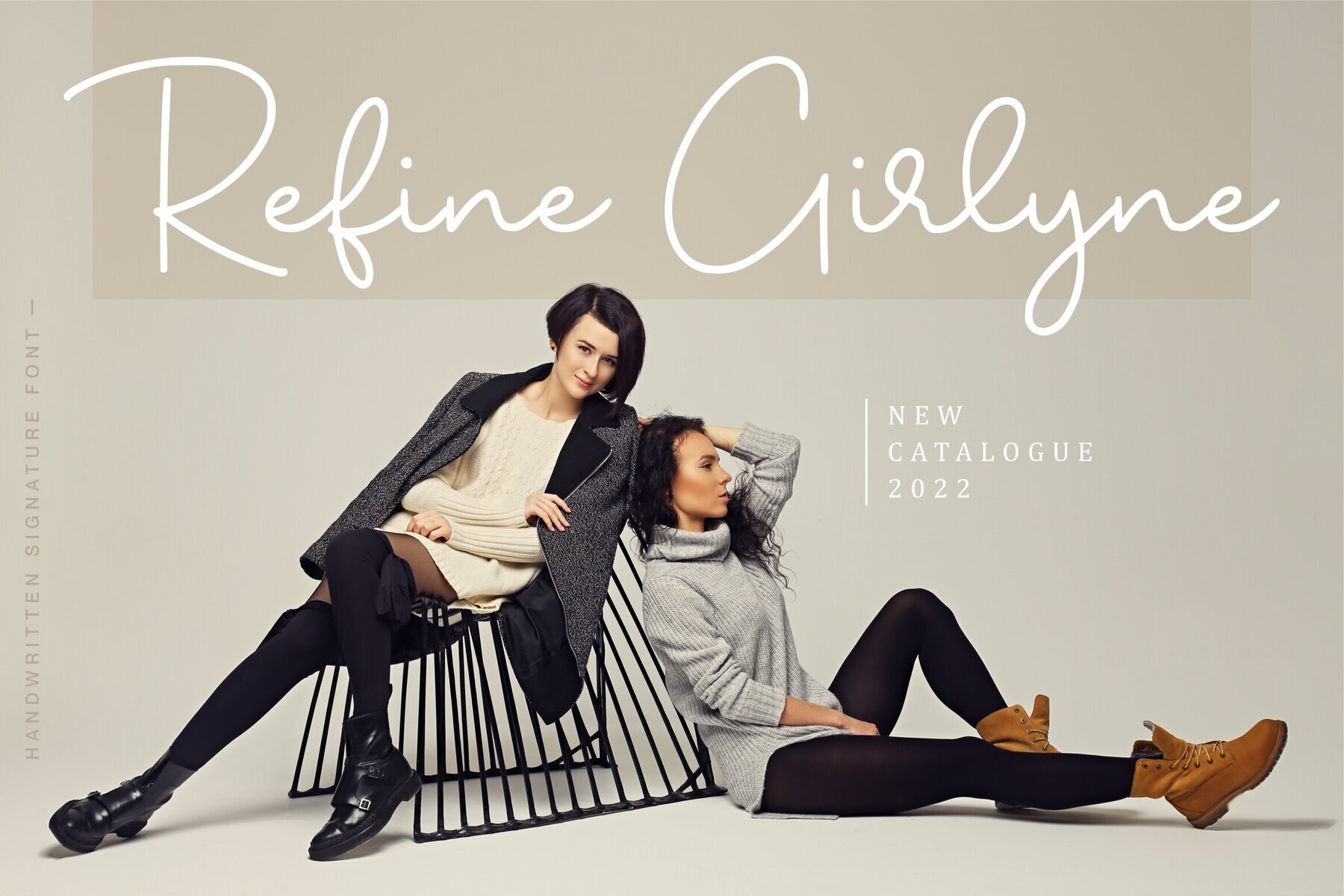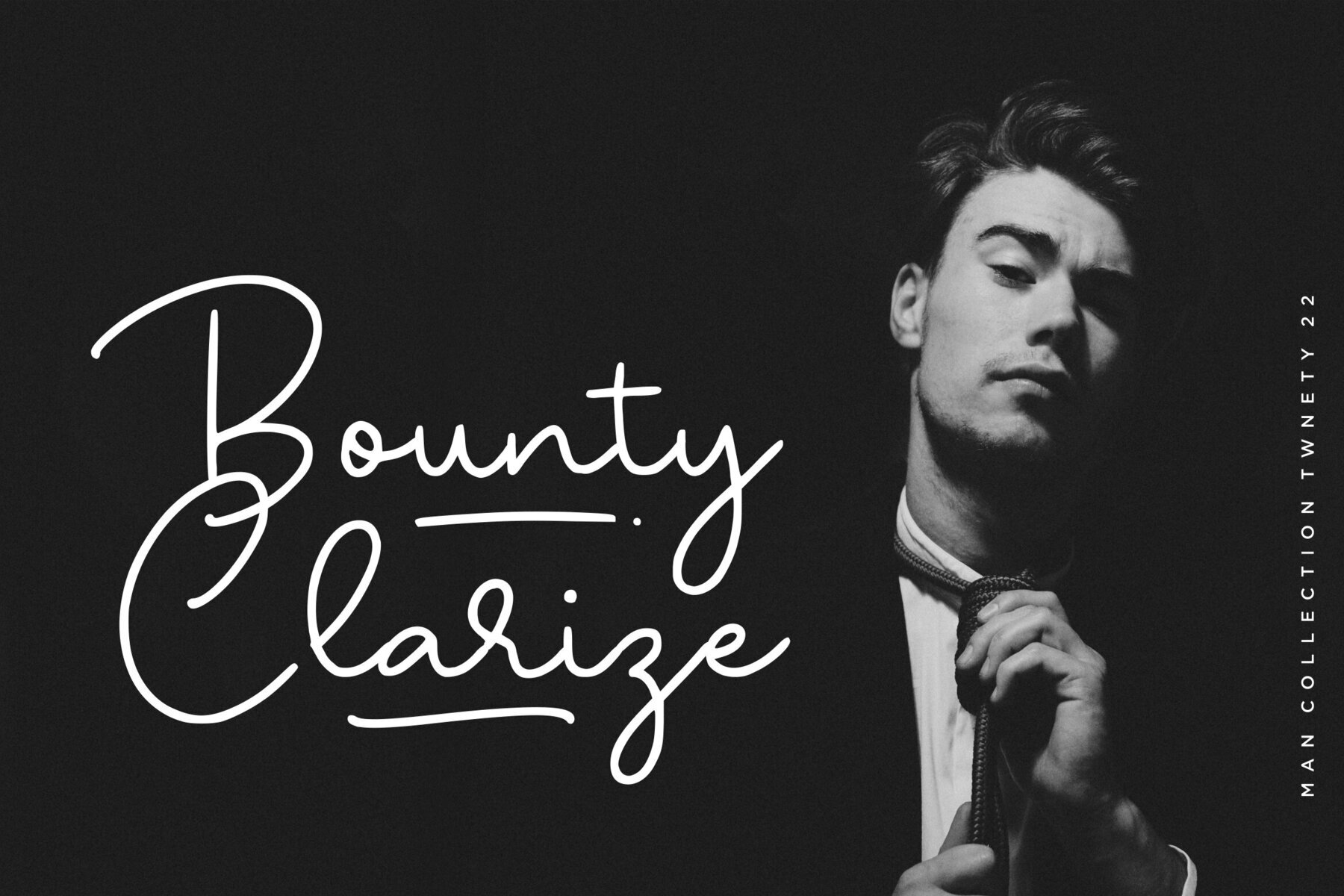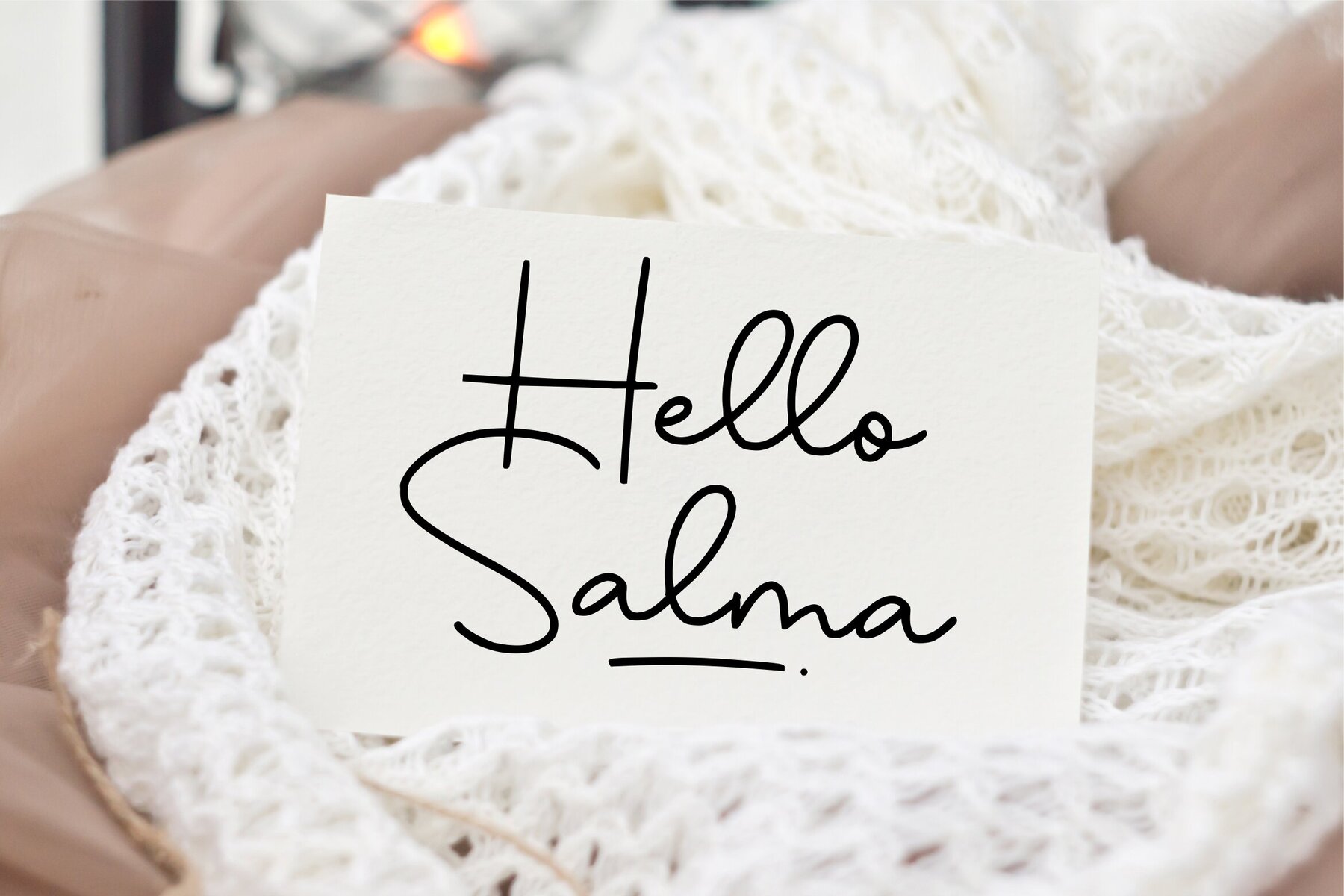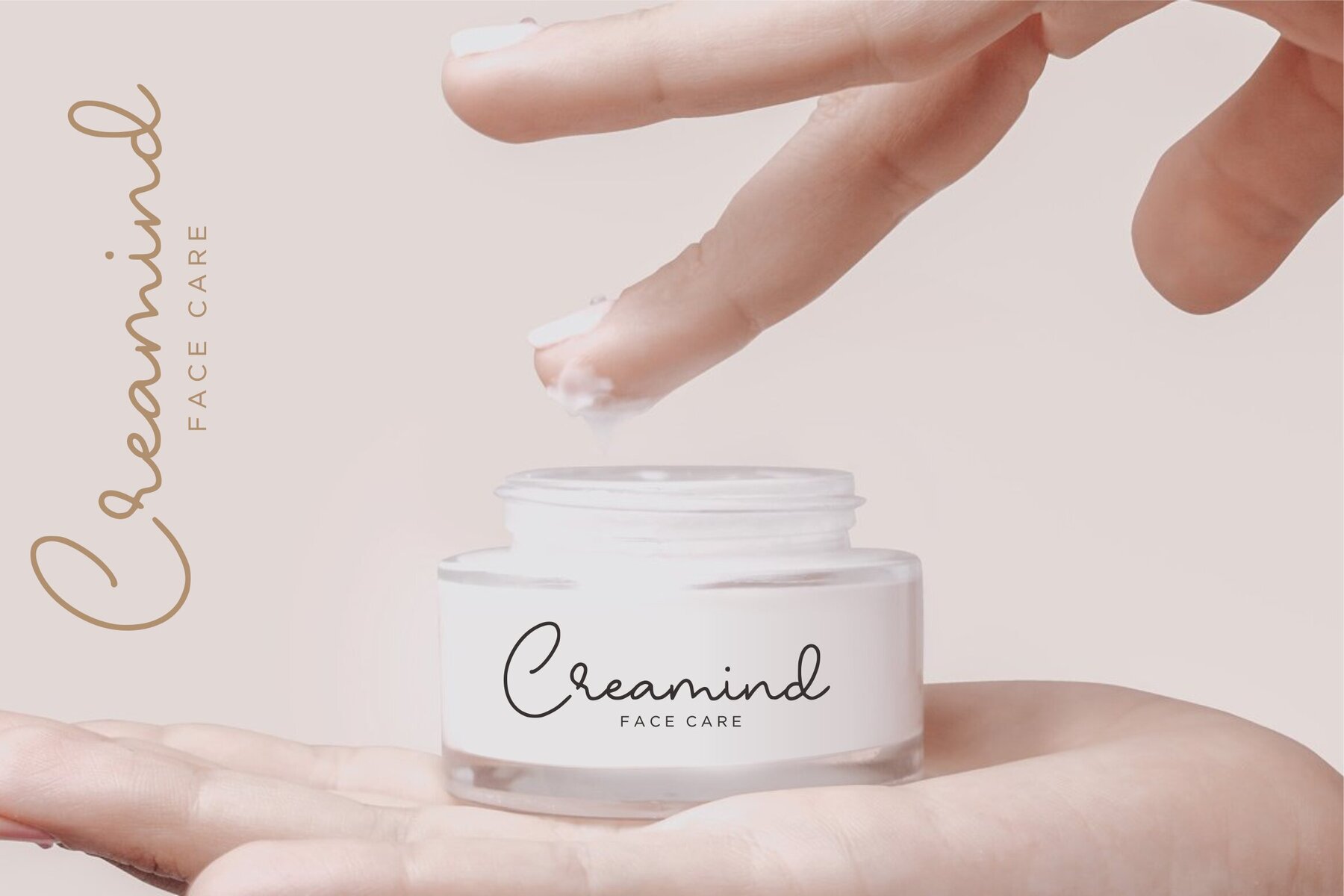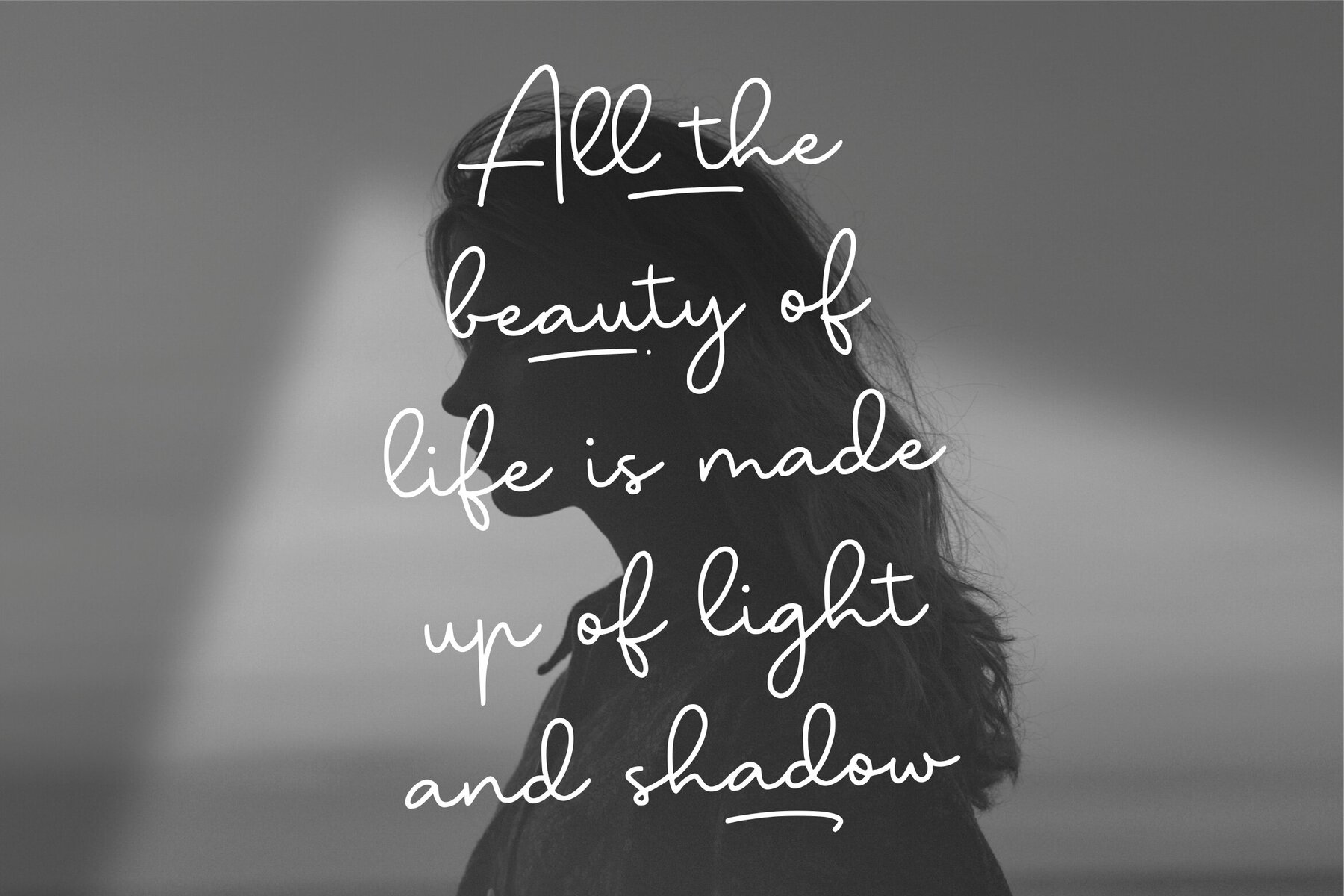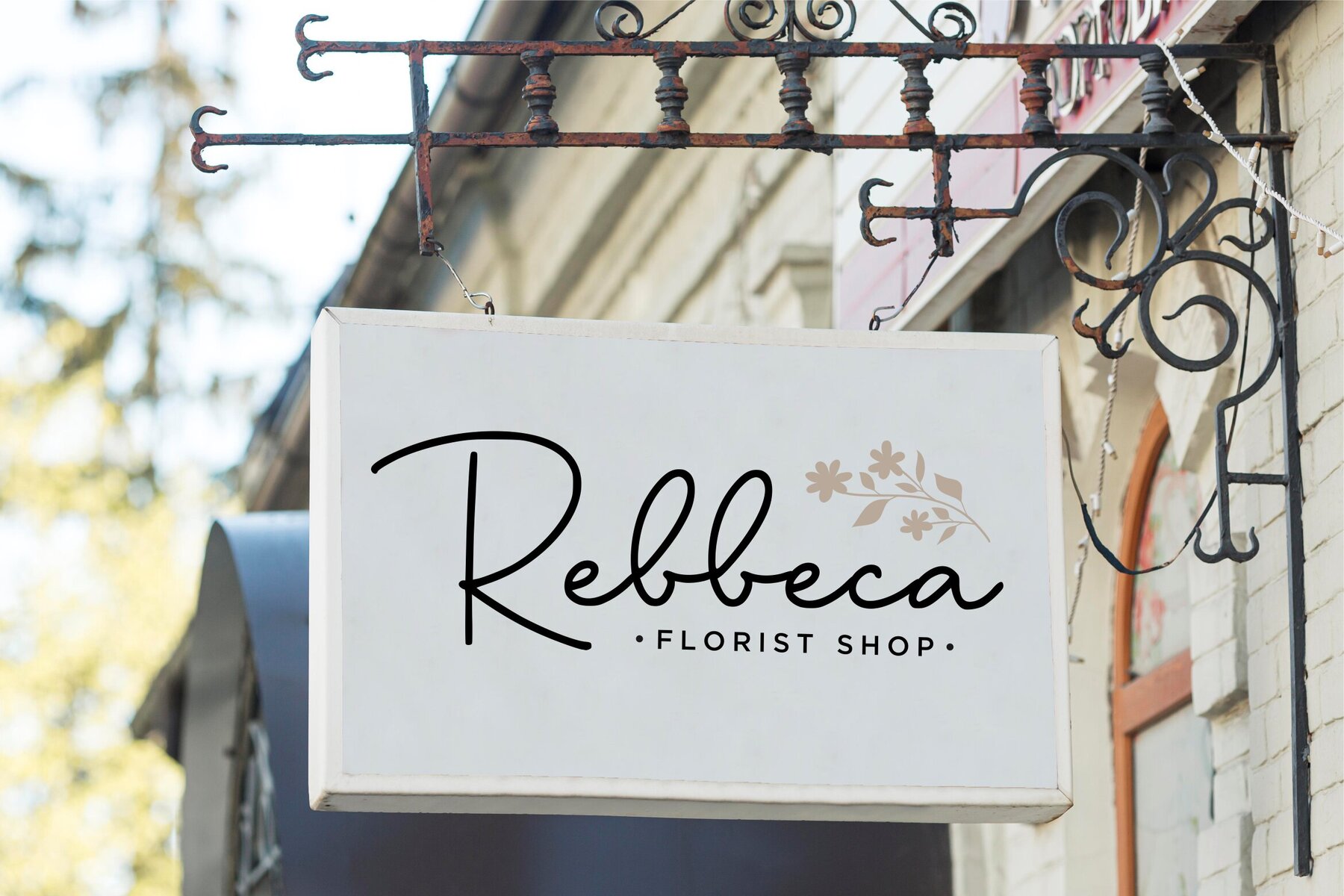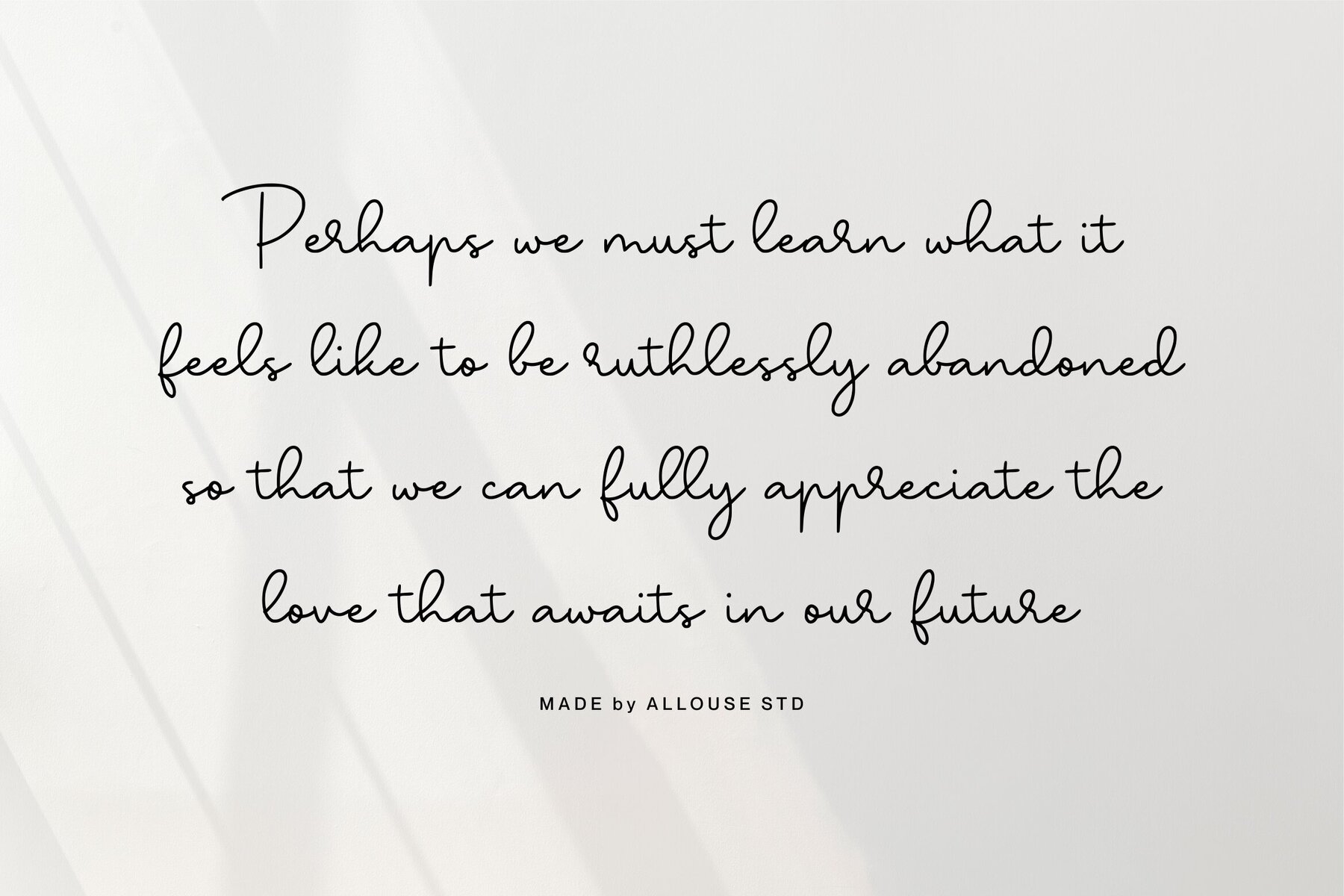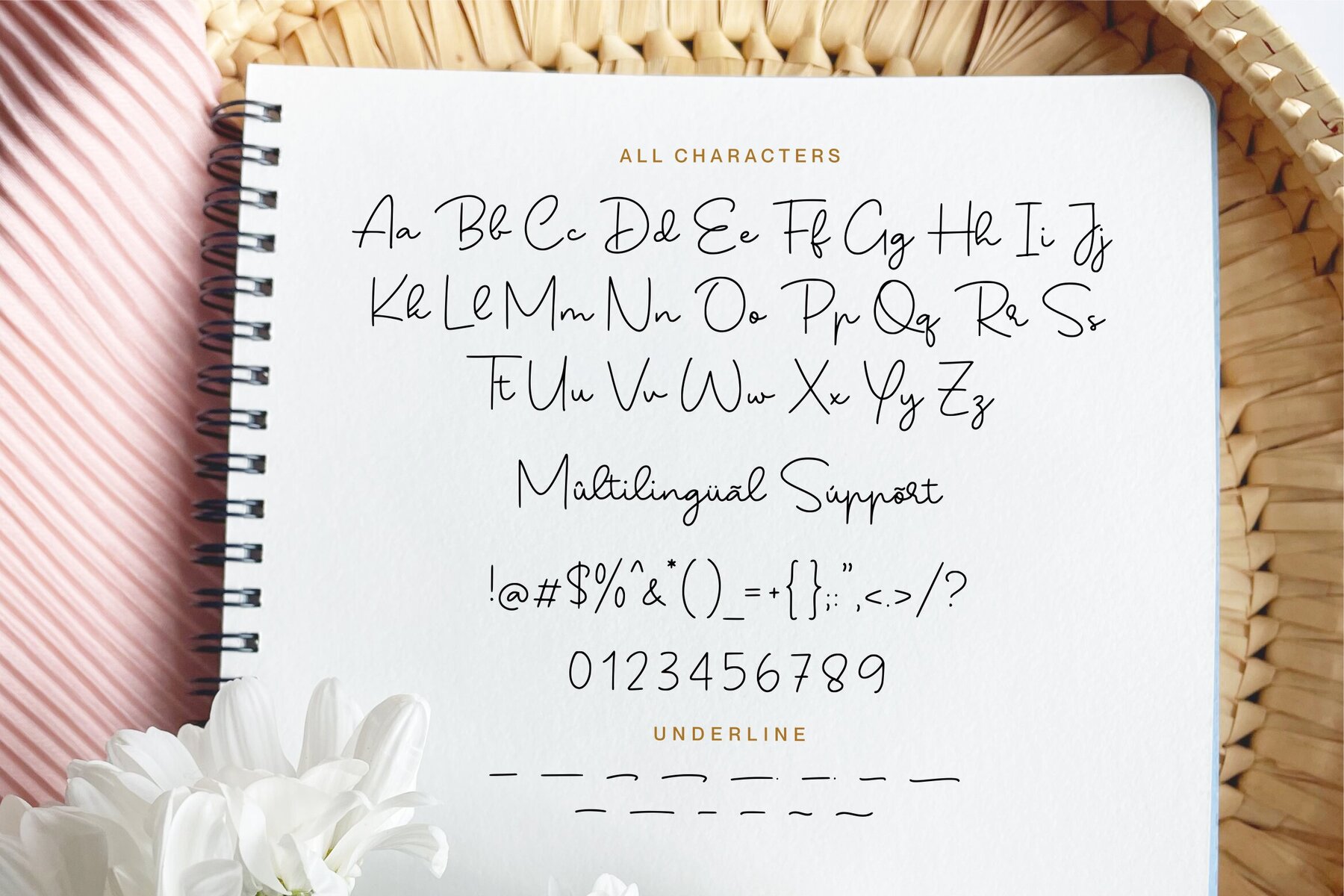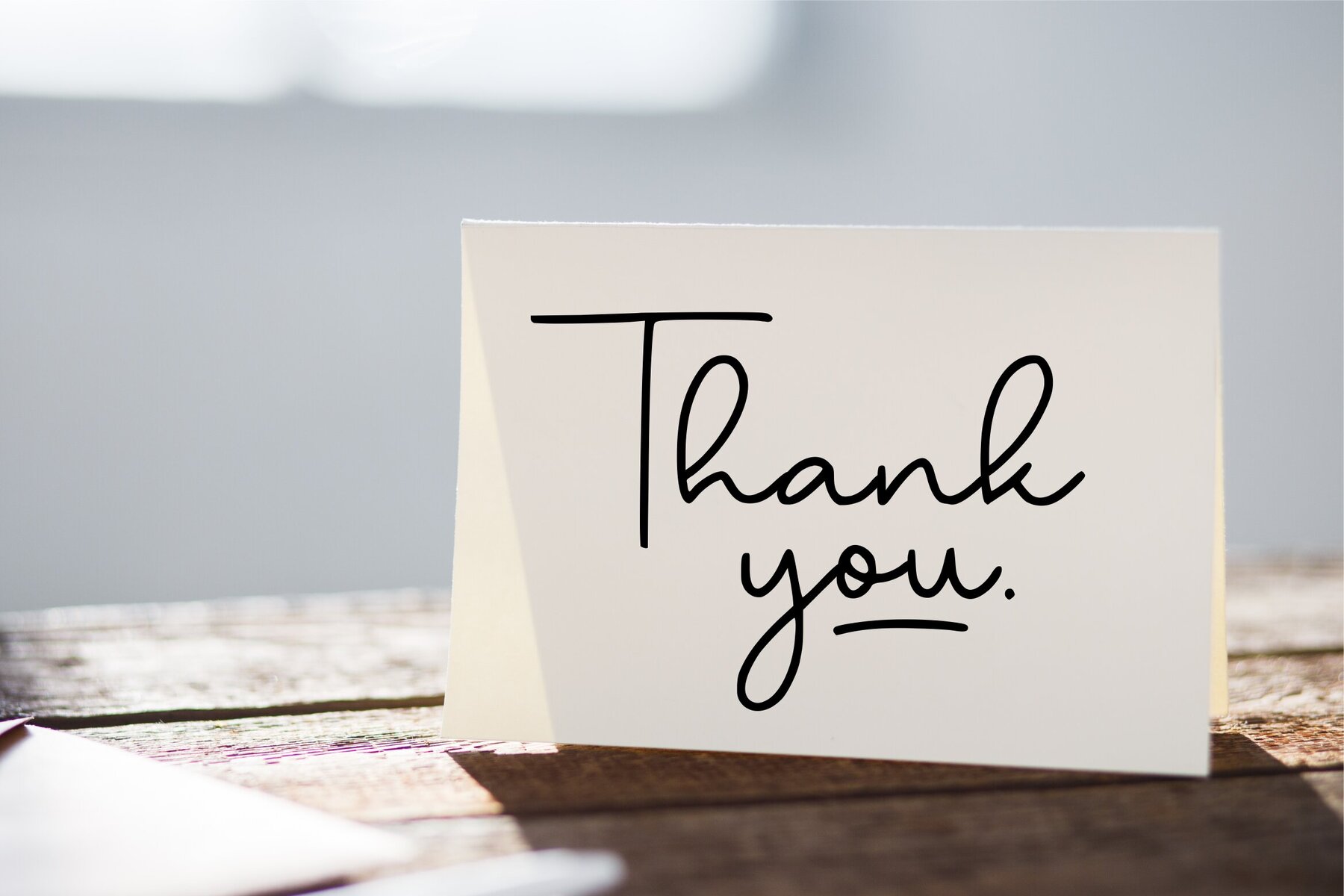
Yoehline: Versatile Typeface for Elegant Design
Yoehline offers a sophisticated touch to any project. Perfectly suited for product packaging, branding initiatives, magazines, and social media, this typeface brings elegance and clarity to your visual communications. Its delicate balance of form allows for seamless integration into wedding designs or acts as a refined complement to text against any backdrop.
• Elegant Design – Ideal for upscale branding and stylish packaging.
• Versatility – Suitable for a range of projects, from editorials to digital media.
• Refined Aesthetic – Elevates wedding invitations and sophisticated layouts.